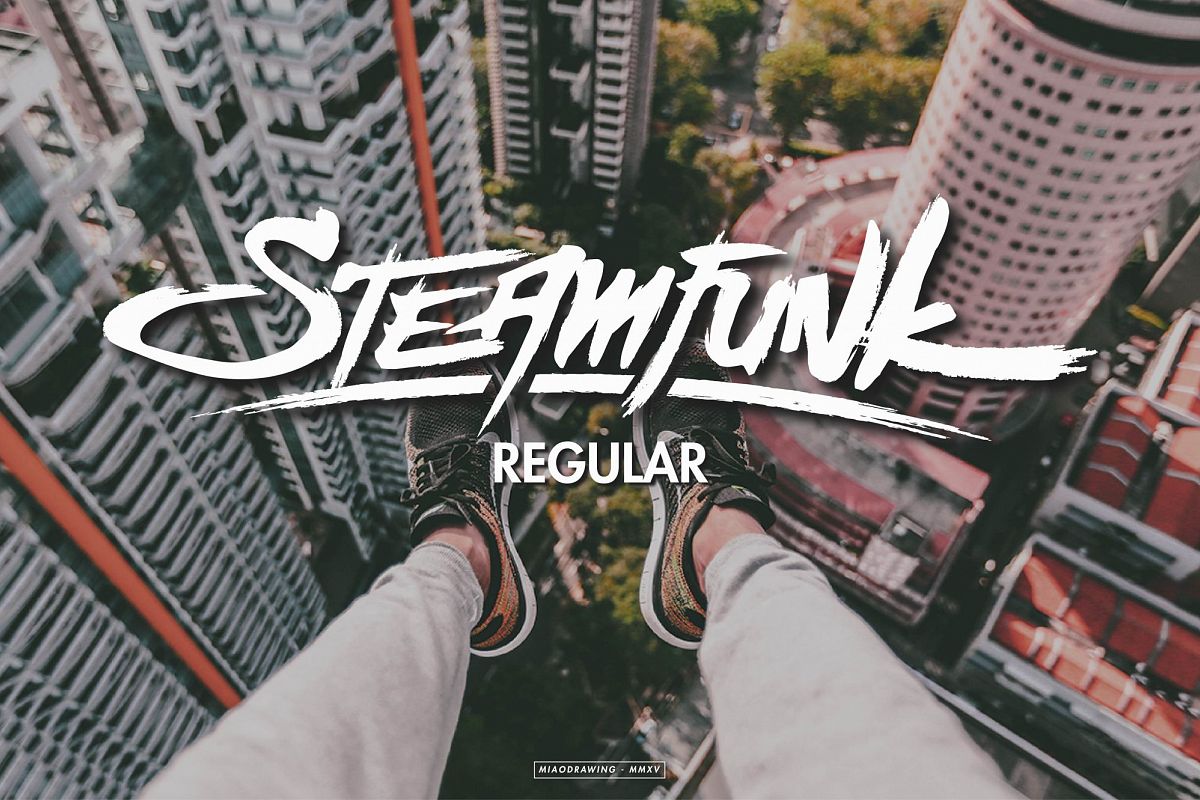
Steamfunk Typeface
Steamfunk.
Steamfunk Typeface type is hand painted typeface designed to help you to create the look of messy, rough, strong, grunge for any designs requirements.
Steamfunk Typeface comes with uppercase & lowercase characters, punctuation, numerals, and ligatures.